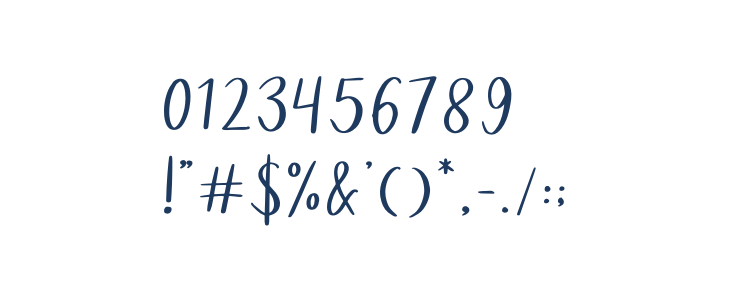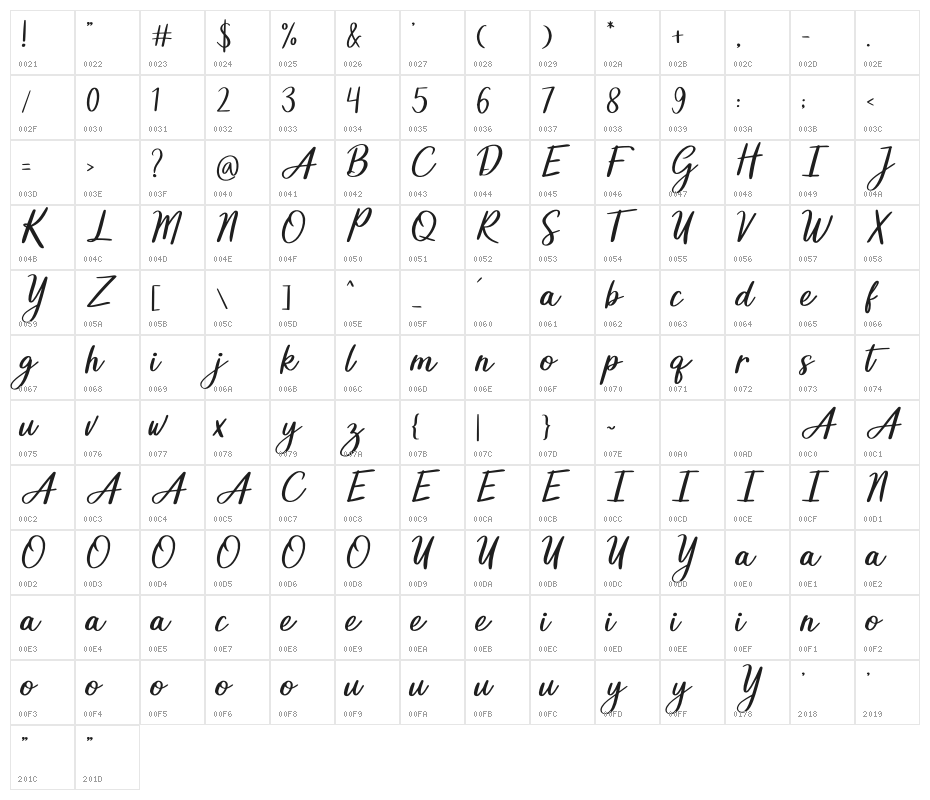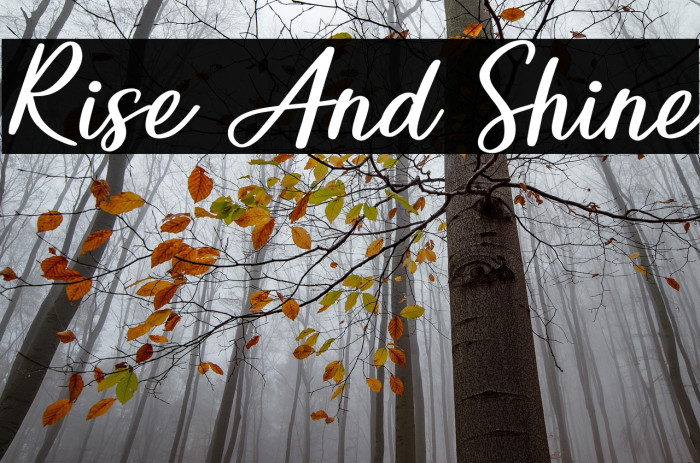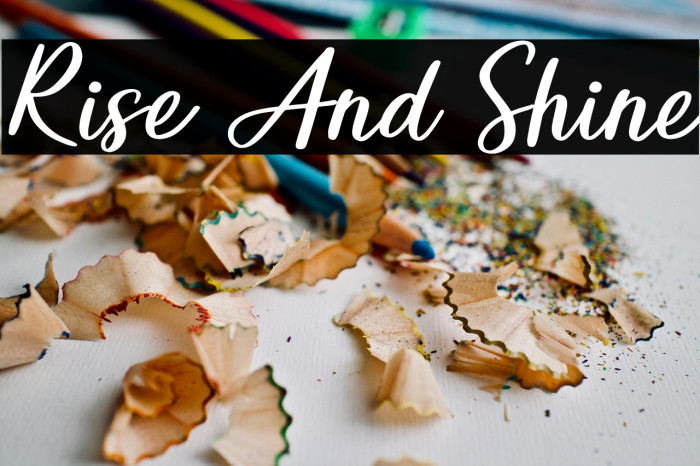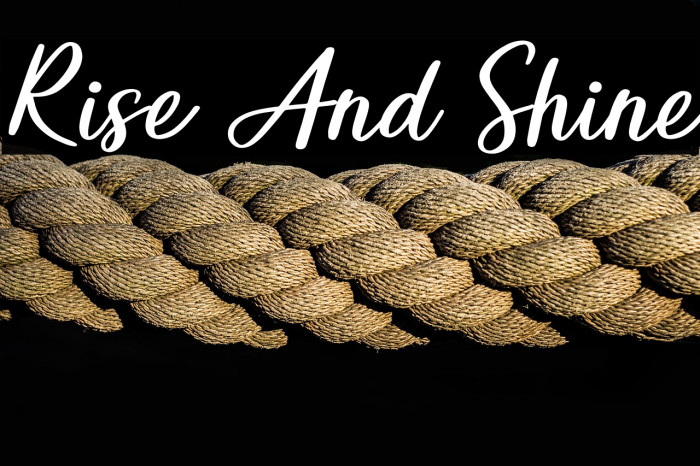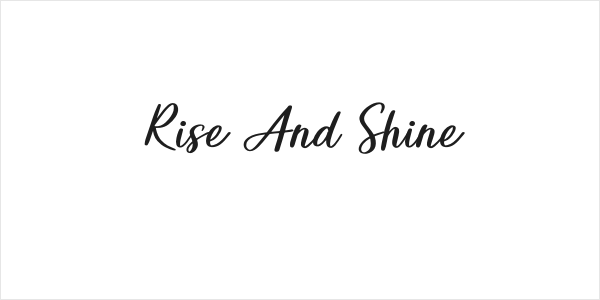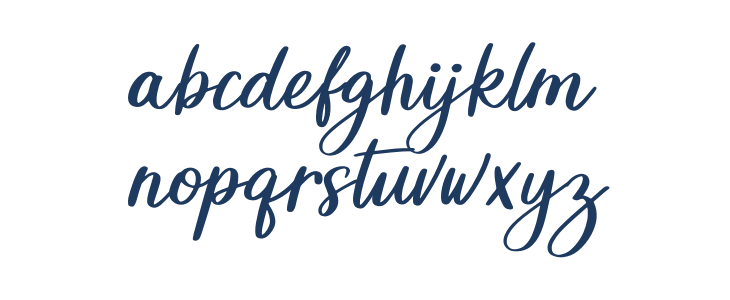
Rise And Shine Font
Rise And Shine Description
This font features a lively and elegant script style, characterized by its flowing, connected letters that mimic the fluidity of natural handwriting. The uppercase letters are slightly more formal, with a graceful slant and smooth curves, while the lowercase letters maintain a consistent rhythm and balance. The numbers and special characters are designed to complement the letters, maintaining the same fluid and dynamic style. This font exudes a sense of sophistication and charm, making it ideal for projects that require a personal touch.
Overall StyleElegant, Sophisticated
Use CaseLogos, Invitations, Personal stationery
Proposed ProjectsIdeal for wedding invitations, greeting cards, branding, and personal stationery.